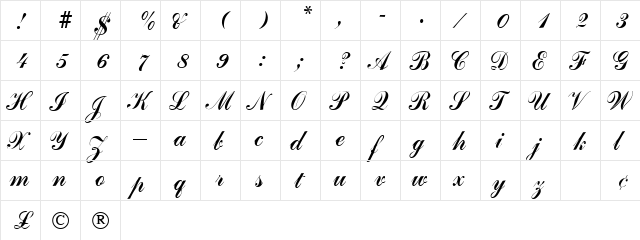
L'AubergeScriptSSK Regular
Design Context for L'AubergeScriptSSK Typeface
L'AubergeScriptSSK flows with the natural rhythm of handwritten lettering, making it ideal for designs that call for warmth and personal expression.
Font Pairing: Combine L'AubergeScriptSSK with a simple geometric sans for maximum contrast — the tension between flowing curves and clean structure is a classic typographic pairing.
Pro Tip: Pair L'AubergeScriptSSK with a clean sans-serif for supporting text. The contrast between fluid script and geometric structure creates an elegant typographic hierarchy.